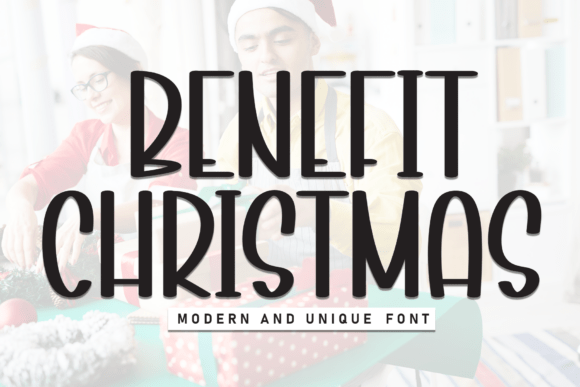
Unwrapping the Perfect Typographic Gift: Benefit Christmas Font
As the holiday season approaches, designers often find themselves on the hunt for the perfect font to evoke the warmth and magic of Christmas. You’ve spent hours scouring the web, only to land on a font that’s either too cheesy or too bland. But what if you stumbled upon a font that captures the essence of the season without being too over-the-top?
Meet Benefit Christmas Font, a casual and neat display font that brings a friendly, approachable vibe to your designs. With its clean lines, balanced letterforms, and subtle rounded edges, it’s the perfect addition to your holiday branding, headlines, packaging, and digital content. This versatile font is a valuable asset for designers, offering clarity and charm in equal measure.
Whether you’re working on a Christmas campaign or simply want to add a touch of festive flair to your designs, Benefit Christmas Font is the perfect gift for your creative toolbox.
Benefit Christmas Font Key Features
- Unique Characteristics: The Benefit Christmas Font features a modern, elegant, and festive design, making it perfect for holiday-themed projects, such as Christmas cards, gift tags, and advertisements.
- Character Set: The font includes a wide range of characters, including uppercase and lowercase letters, numbers, punctuation marks, and special characters.
Benefit Christmas Font Review
Overall, I have mixed feelings about the Benefit Christmas Font. While it’s a fun and playful font, it’s not without its limitations.
✨ The font’s whimsical and festive feel makes it perfect for holiday-themed projects, such as Christmas cards, gift tags, or social media graphics.
✨ The font’s bold and colorful design is attention-grabbing and can add a fun touch to your designs.
✨ The font is highly customizable, allowing you to adjust the size, color, and style to fit your design needs.
⚠️ The font’s lack of versatility makes it difficult to use in non-holiday projects. Its festive feel may not be suitable for other themes or designs.
⚠️ The font’s bold design can be overwhelming if used excessively. It’s essential to balance the font with other design elements to avoid visual clutter.
⚠️ The font’s color palette is limited to a range of bright and bold colors, which may not be suitable for designs that require a more subtle or neutral color scheme.
The Benefit Christmas Font is a fun and playful font that’s perfect for holiday-themed projects. While it’s not without its limitations, it’s a great addition to any designer’s toolkit. With some creative restraint and balancing, this font can add a fun and festive touch to your designs.
The Benefit Christmas Font is ideal for:
- Holiday greeting cards and invitations
- Christmas party invitations and decorations
- Gift tags and wrapping paper
- Christmas-themed social media graphics and ads